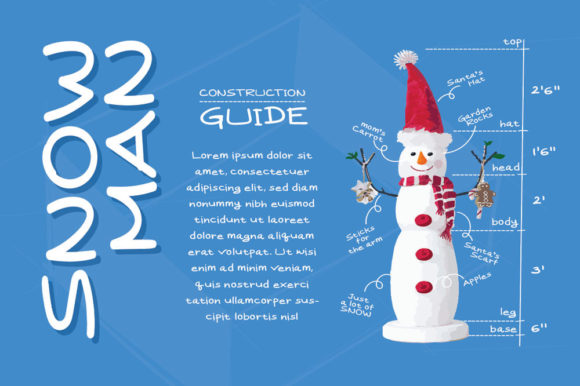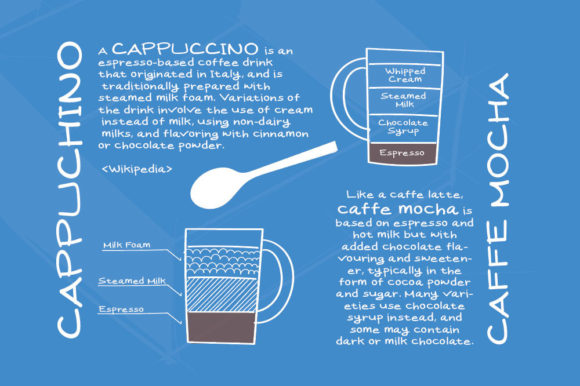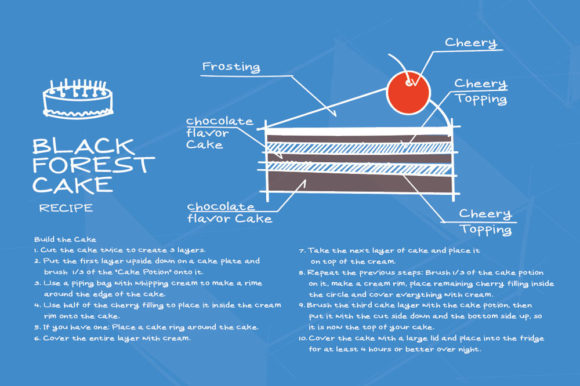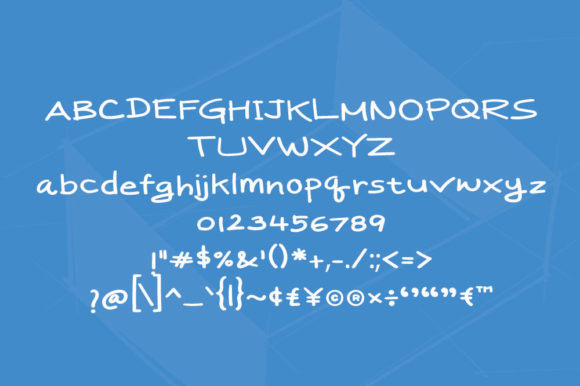
The Ultimate Guide to Blueprint Font: A Friendly and Neat Handwritten Font
I’ll never forget the time I was working on a craft project, pouring my heart and soul into creating the perfect greeting card. But, as I was about to add the final touches, I realized I was stuck with a font that just didn’t feel right. It was too formal, too boring, and totally not what I had envisioned. That’s when I stumbled upon Blueprint font, and it was love at first sight! 💕
Blueprint is an informal, friendly, and neat handwritten font that’s perfect for crafting, digital designing, presentations, or making greeting cards. In this article, I’ll share my honest review, a step-by-step guide on how to use it, and some awesome alternatives to try out.
My Honest Review of Blueprint Font
• 💖 Friendly and approachable vibe that’s perfect for creative projects
• ✅ Easy to read, even at small sizes
• 🎨 Highly versatile and works well with various design styles
• 🔍 OpenType features and glyphs for added customization
While Blueprint font is amazing, there are a few things to keep in mind:
• 🤔 May not be the best fit for super formal or corporate designs
• ⚠️ Limited availability of certain special characters
The Story Behind Blueprint Font
Blueprint font was designed with the intention of creating a friendly and approachable handwritten font. The designer wanted to create a font that felt like a warm conversation with a friend. With its neat and informal style, Blueprint font is perfect for creative projects that need a personal touch.
A: Yes, Blueprint font is perfect for social media graphics! Its friendly and approachable style will make your graphics stand out.